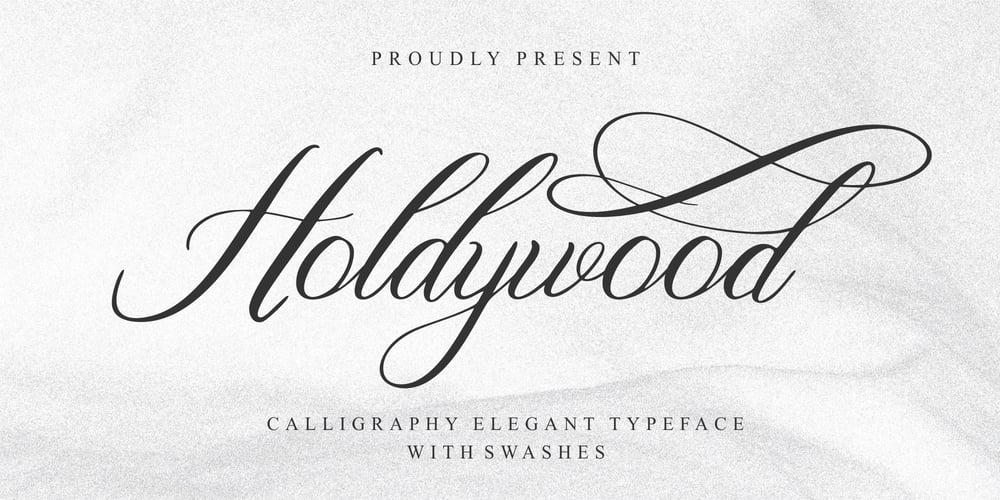
Holdywood Font Family was designed by Suhery Anto, Odies Dwi Yudhistira and published by Qwrtype Foundry. Holdywood contains 1 styles and family package options. Proudly Present, Holdywood is a Calligraphy Elegant Typeface with SwashesHoldywood is perfect for product packaging, branding project, megazine, social media, wedding, or just used to express words above the background.It support multilingual.Enjoy the font, feel free to comment or feedback, send me PM or email. Thank you!